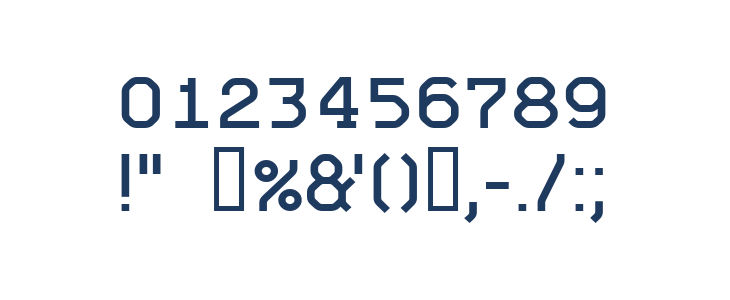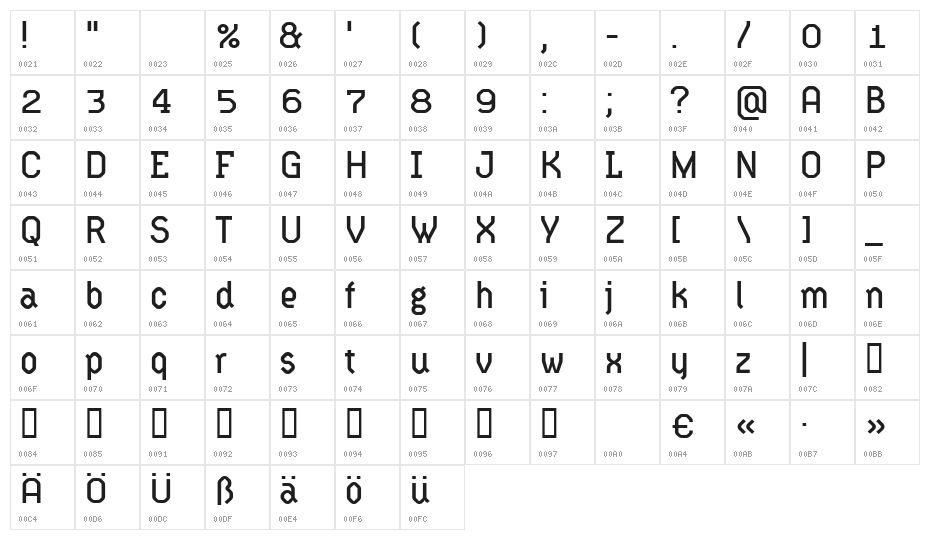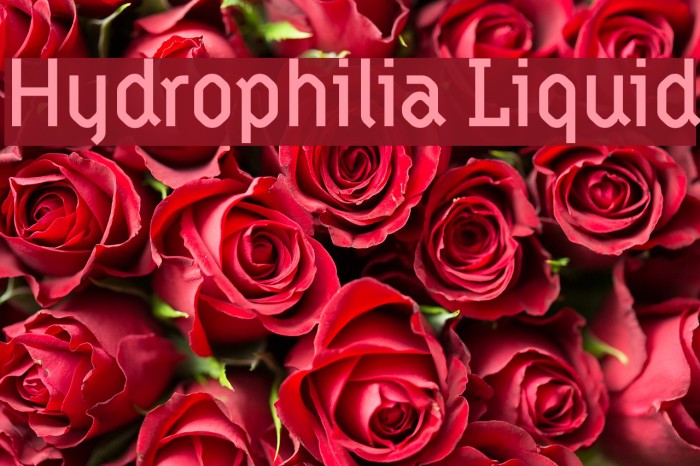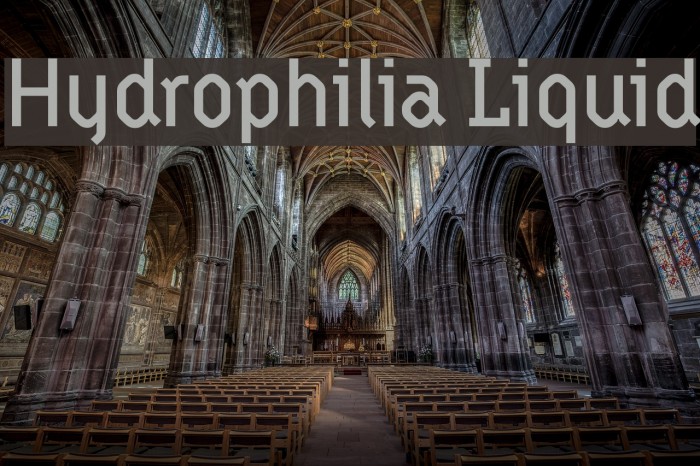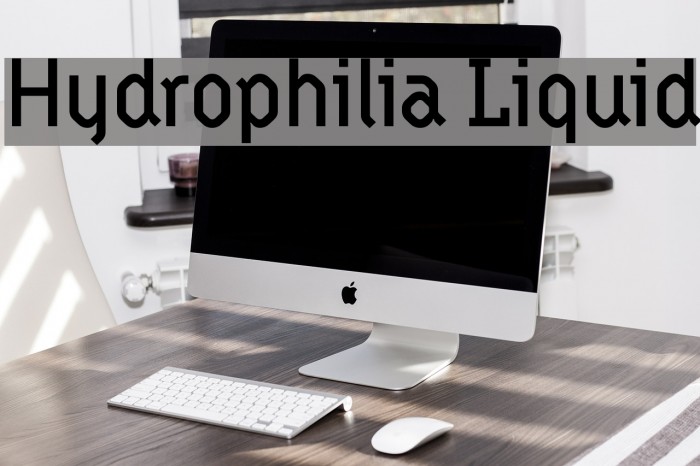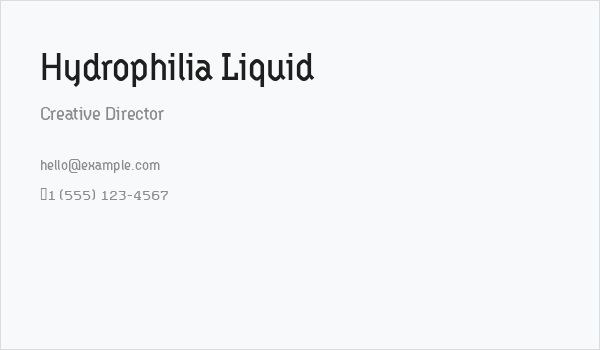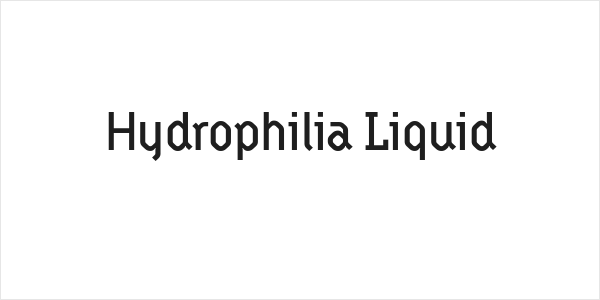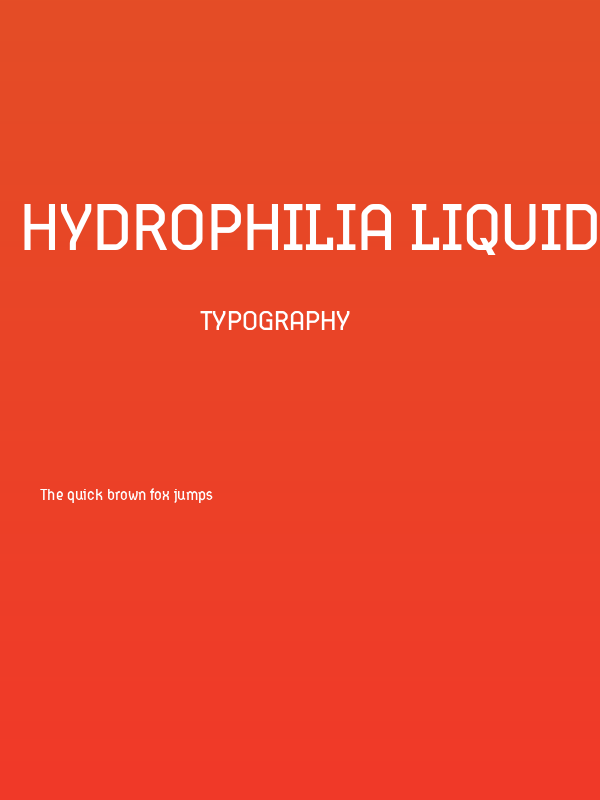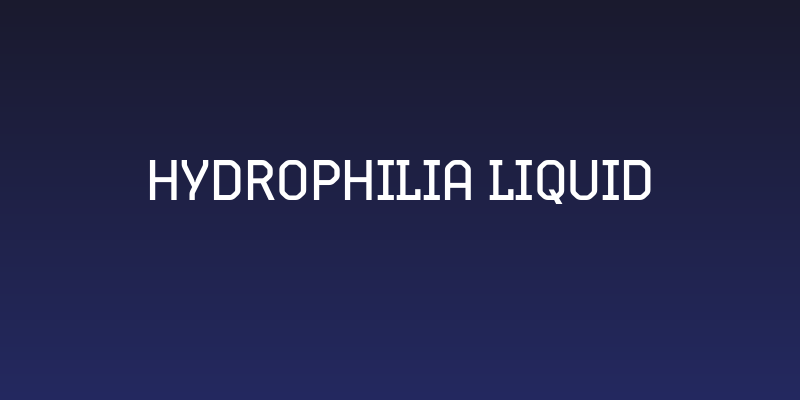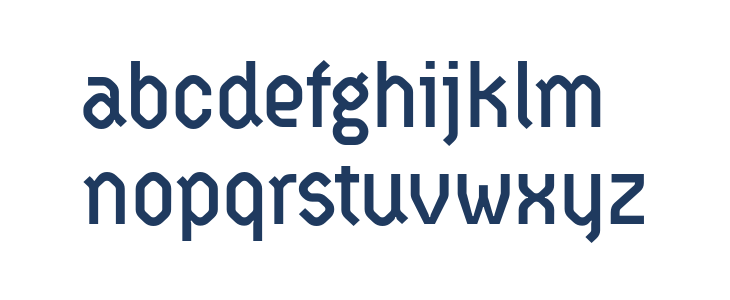
Hydrophilia Liquid Font
Hydrophilia Liquid Description
This font features a geometric and modern design with a distinct, angular style. The characters are constructed with consistent stroke widths, creating a uniform appearance. The uppercase letters are bold and commanding, while the lowercase letters maintain a similar structure with slightly softer edges. The numbers are clear and legible, matching the overall aesthetic of the font. Special characters are designed to complement the alphanumeric characters, maintaining the same angular and geometric style. This font is well-suited for digital displays and modern design projects.
| Use Case | Headlines, Logos, Digital displays |
| Proposed Projects | Ideal for digital displays, modern branding, tech-related projects, and user interfaces. |